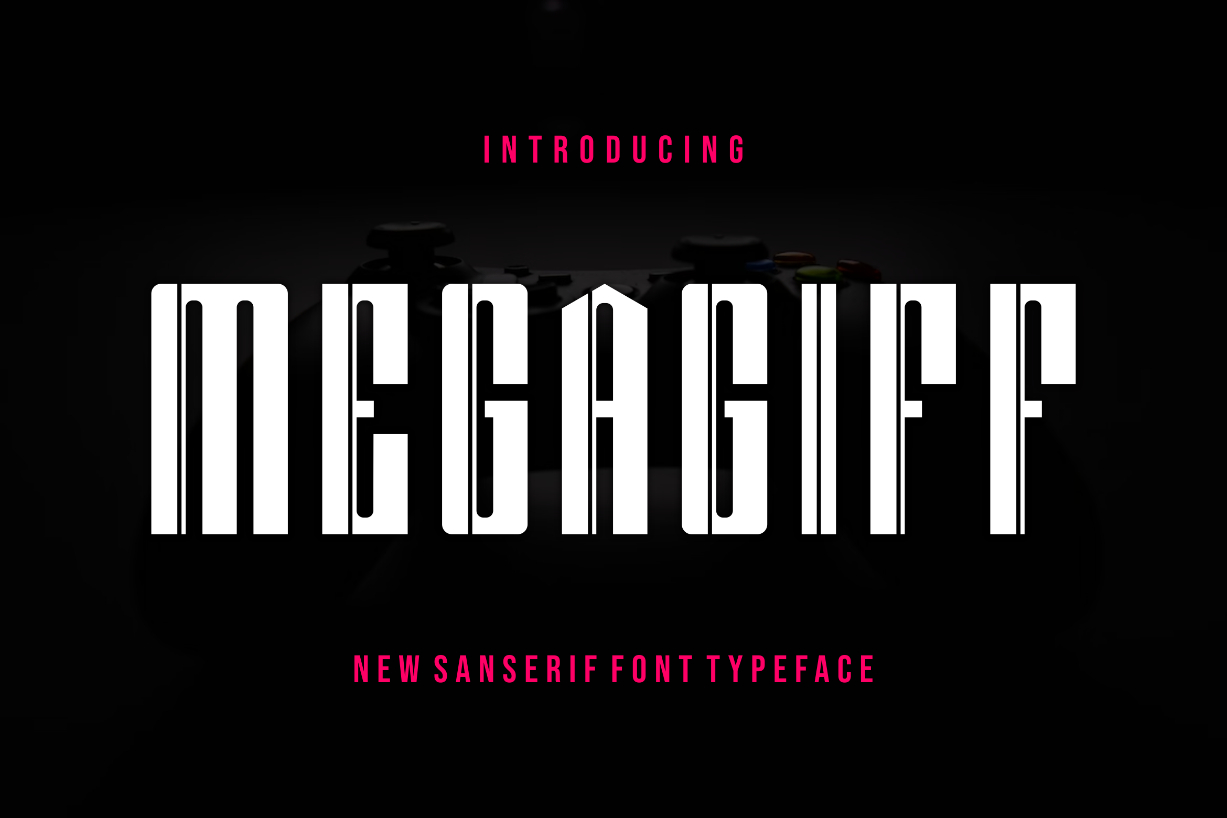
About Megagiff Font
Megagiff is a bold and authentic blackletter font suitable for any branding project like logo, t-shirt printing, esports, and many more. It will look outstanding in a wide range of contexts.